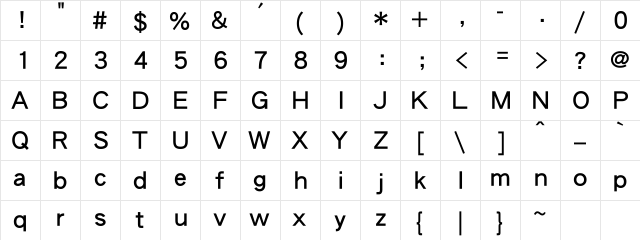
LiHei Pro Medium
Design Context for LiHei Pro Typeface
LiHei Pro takes a measured approach to typography — its balanced proportions and neutral character make it a reliable workhorse for both digital and print work.